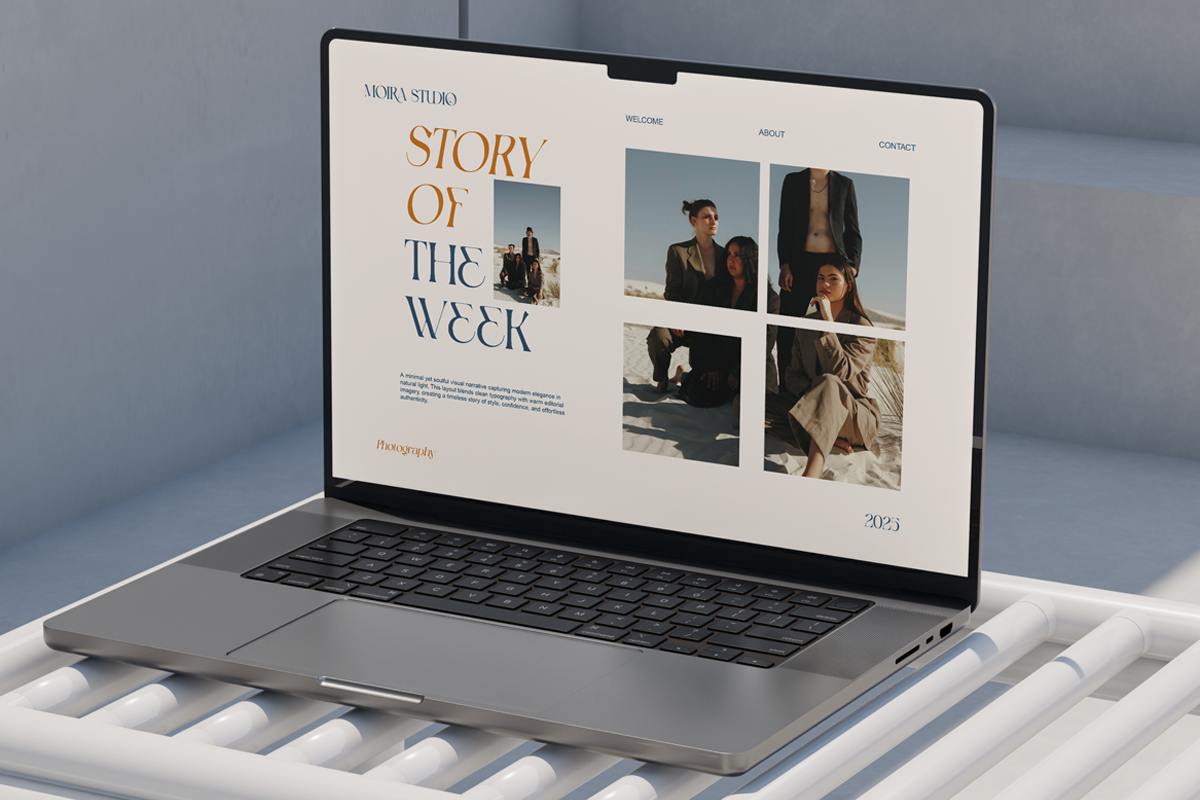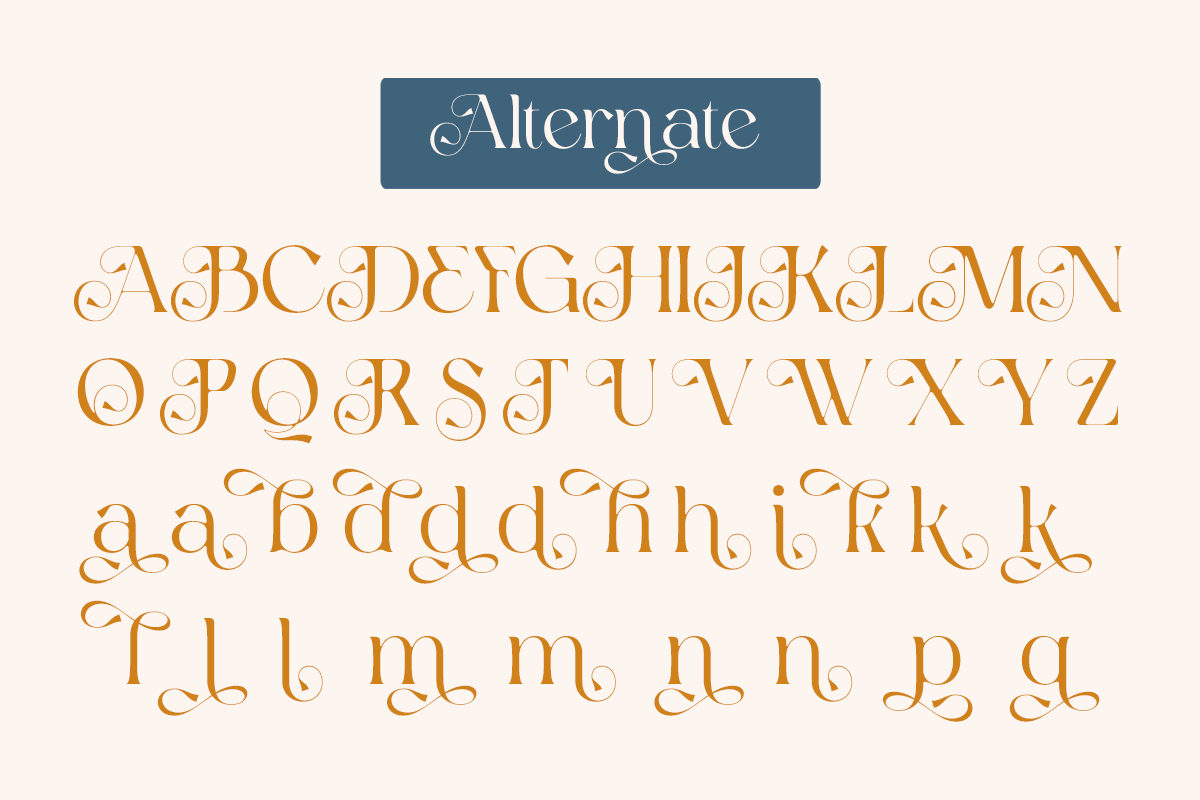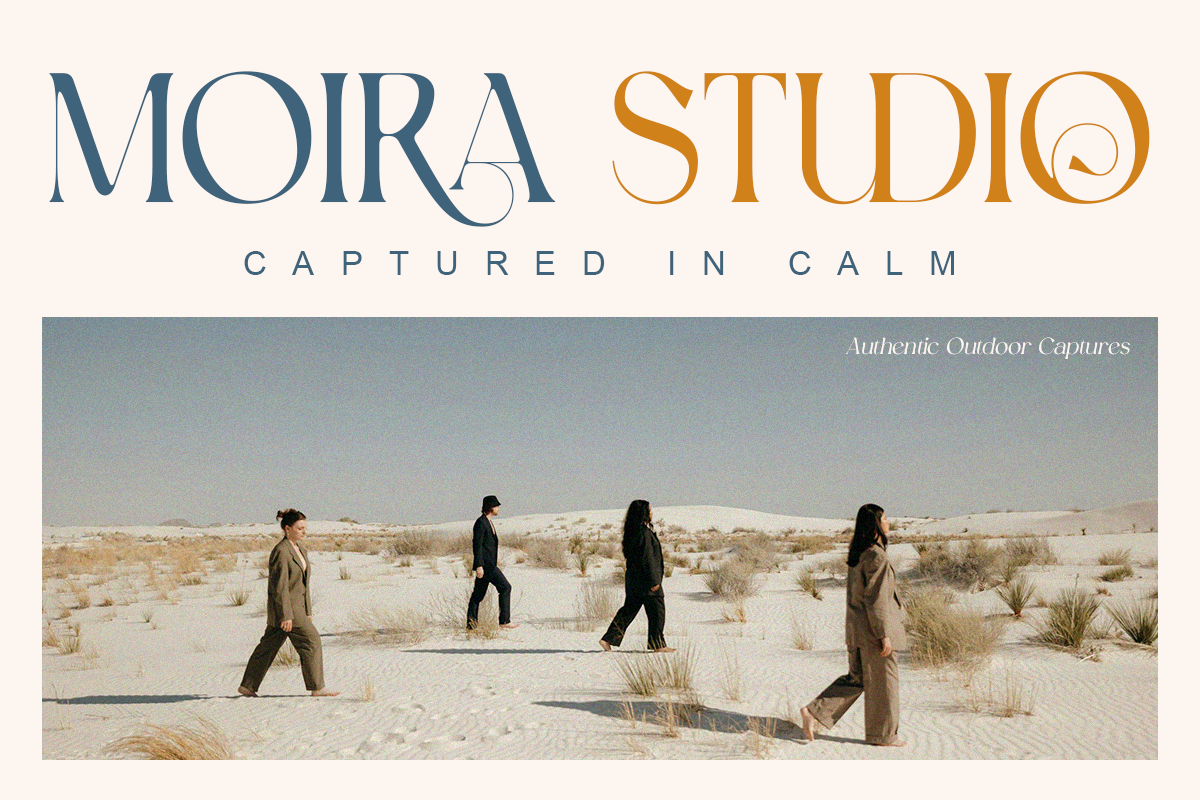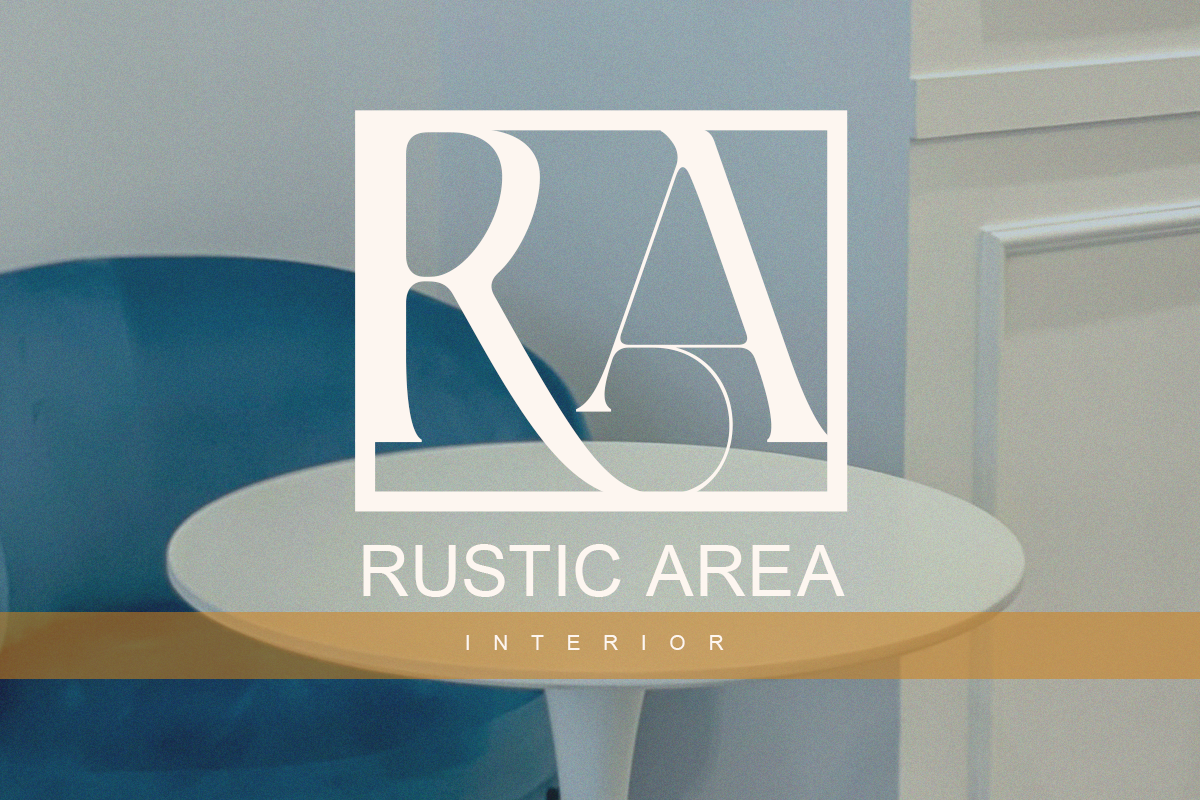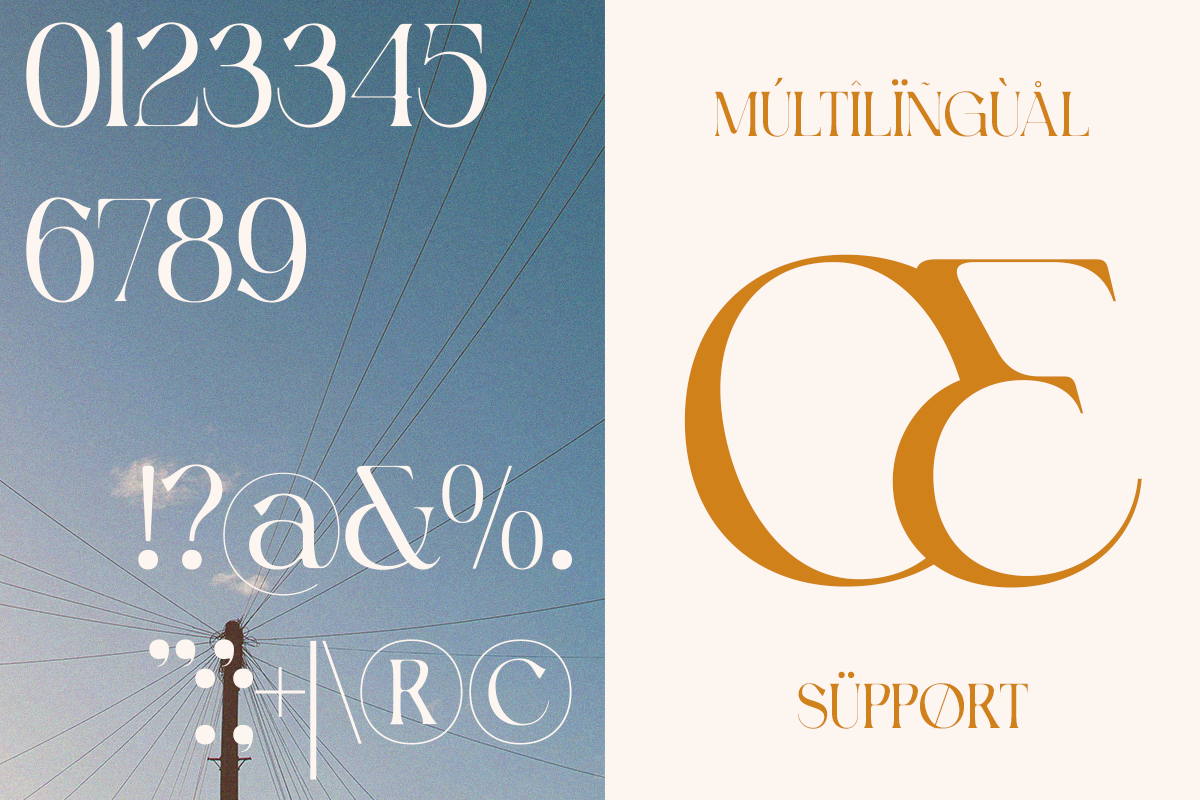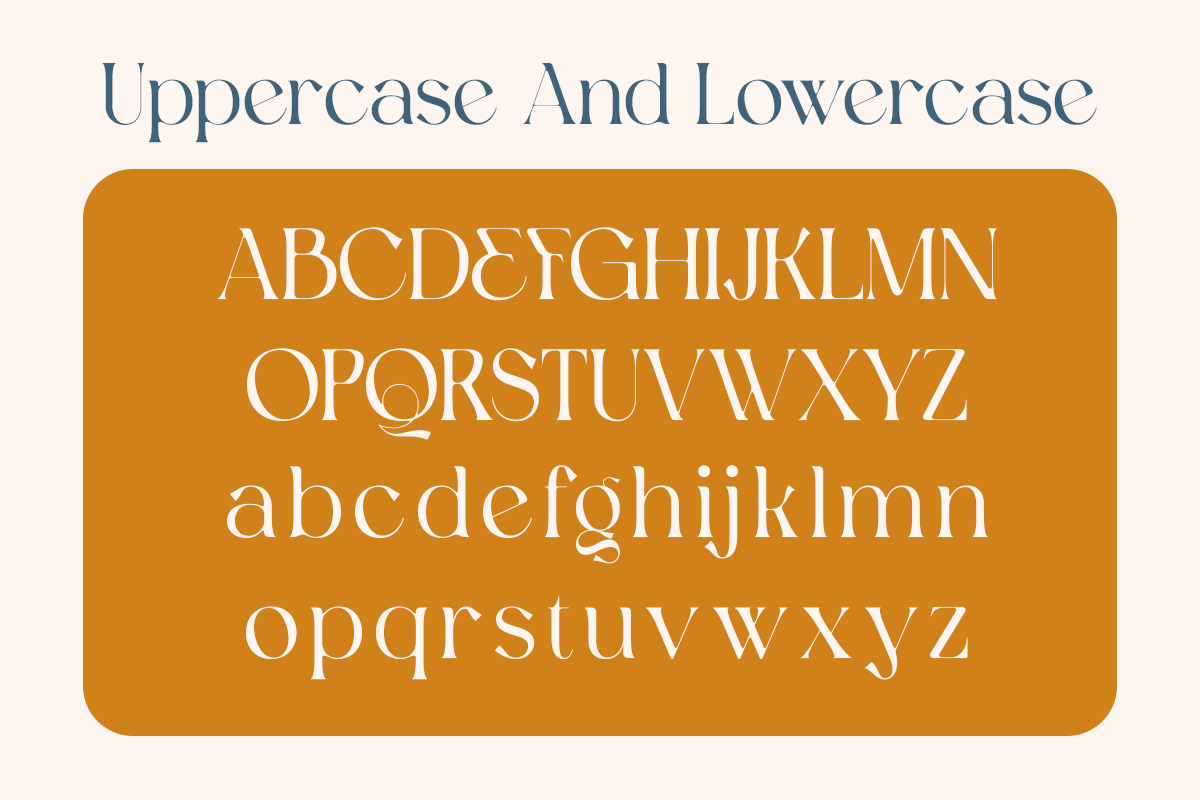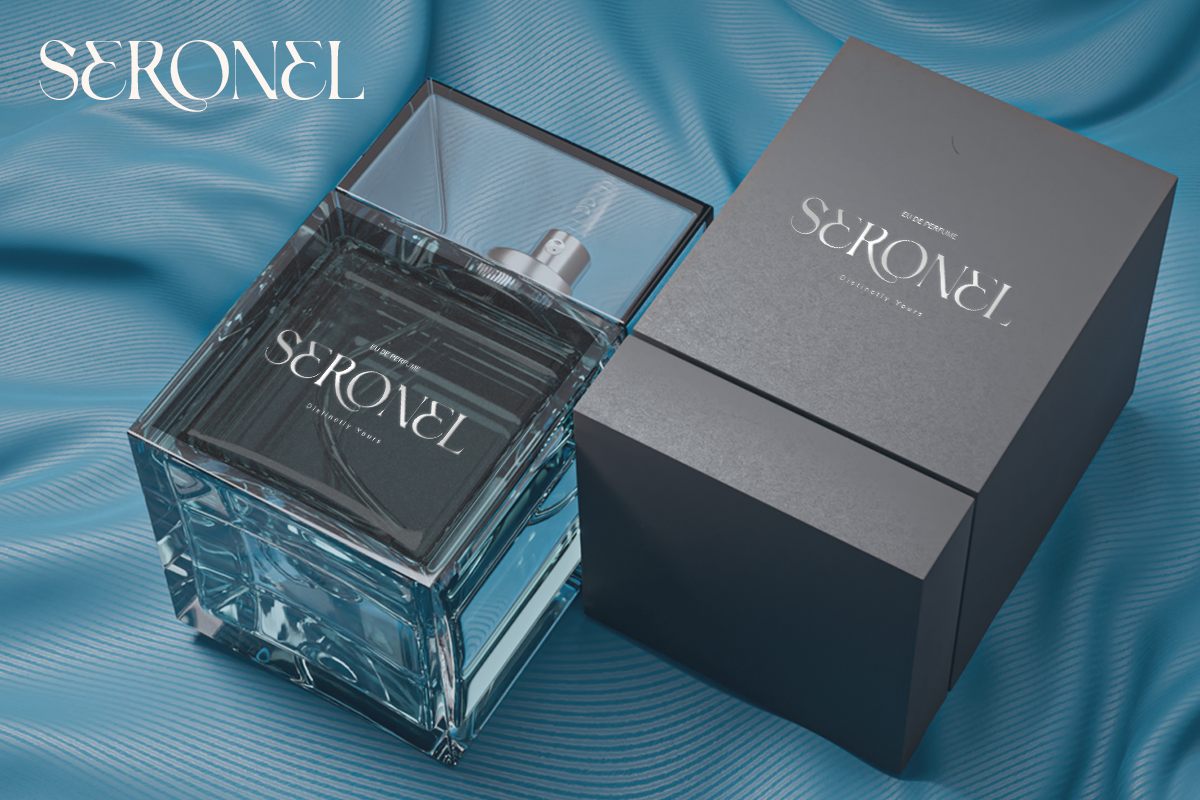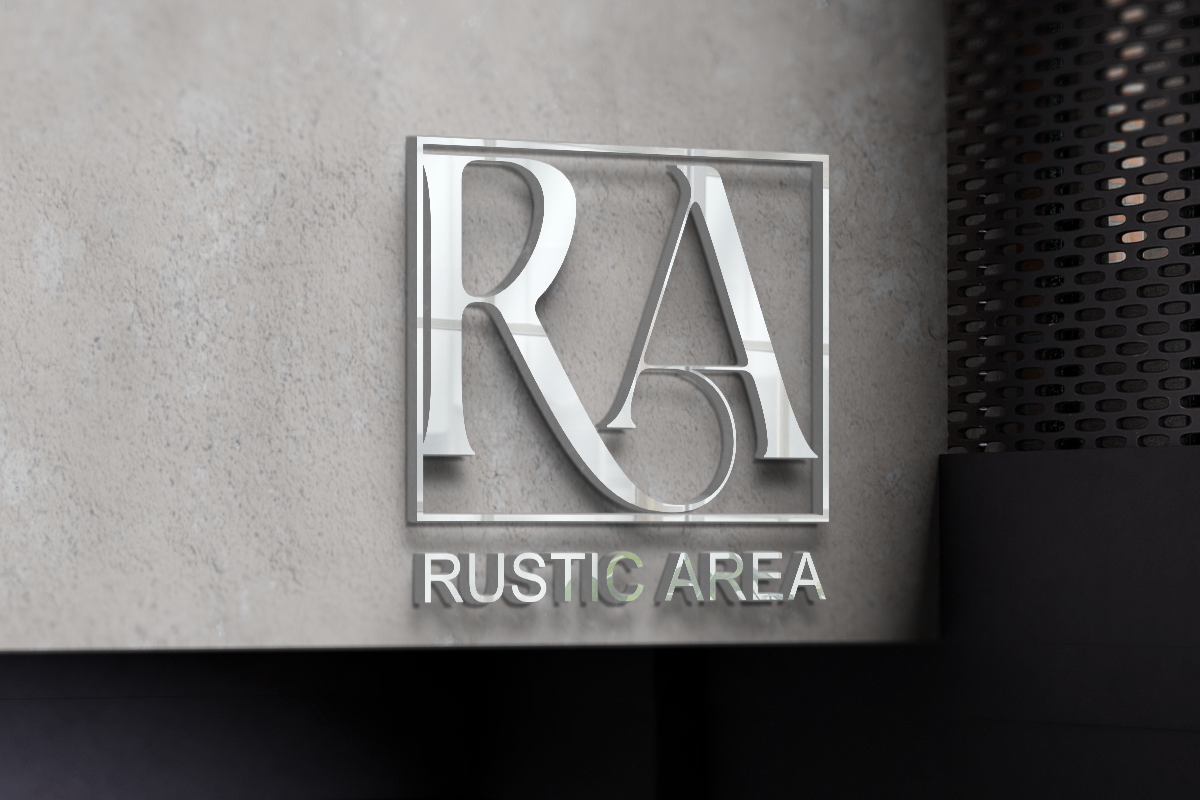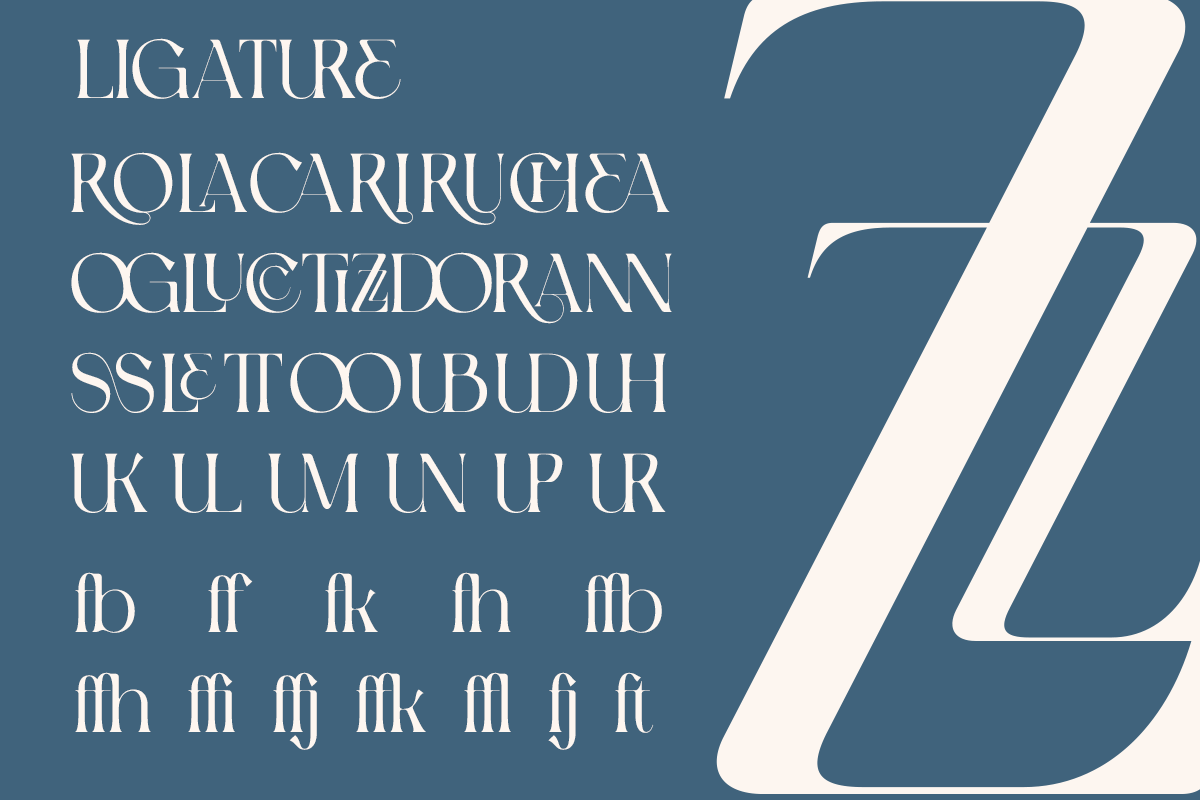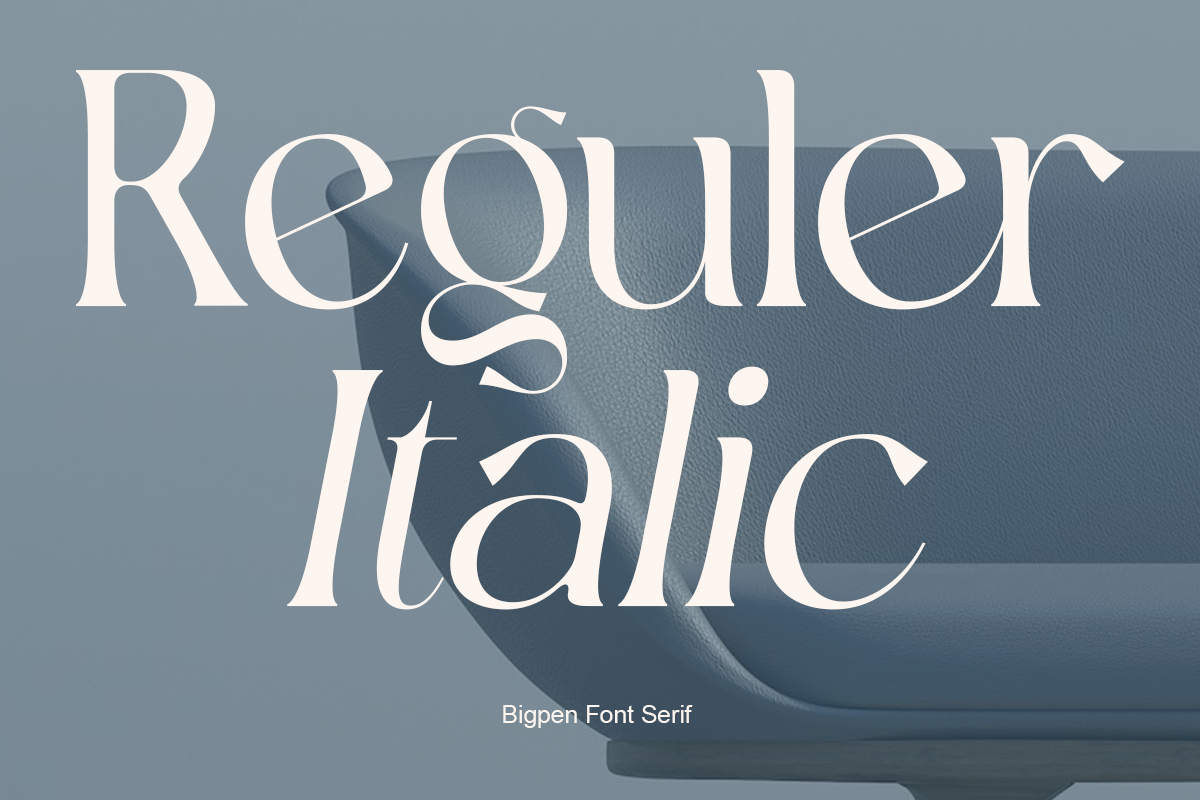
Bigpen - Elegant Modern Swash Serif
Bigpen is a modern elegant swash serif designed to create stylish and refined typography. Its expressive curves and decorative terminals bring a sophisticated luxury tone suitable for branding, editorial design, and packaging.
Bigpen combines classic serif elegance with contemporary styling, making it ideal for logos, fashion brands, magazines, and boutique identity systems.
Designed for creatives who want elegant typography with strong personality.
- Regular & Italic
- Alternates & ligatures
- Swash characters
- Elegant serif construction
Logo design, fashion branding, editorial layout, packaging design, boutique identity, luxury branding.